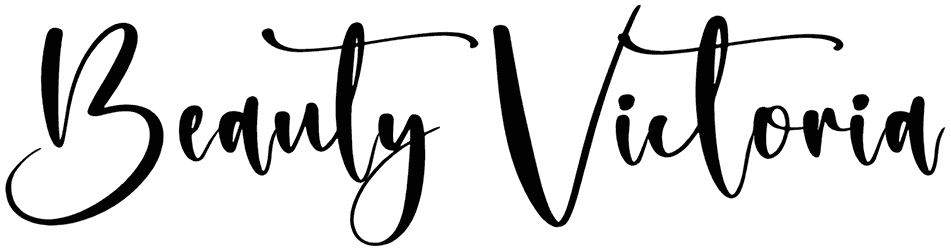
Beauty Victoria Font
Introducing Beauty Victoria, a lovely, feminine font with unique curves and elegant texture that makes your work more creative. It comes with a full set of characters and might seem a little unreadable in a long text. You can use this font for book covers, greeting cards, product packaging, stationery labels, advertising, and all your amazing designs that need a natural handwriting touch.